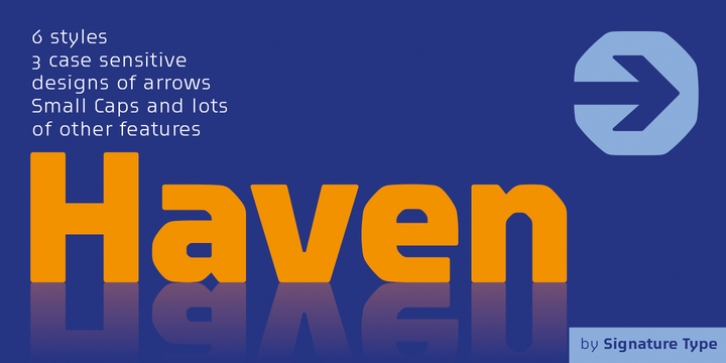
Haven was designed by Rostislav Vaněk, Tomáš Nedoma and published by Signature Type Foundry. Haven contains 6 styles and family package options.
Haven font family is based on the compositionality of constructive elements that create the final shape of individual letters. Mechanical connecting was continuously adjusted by a type designer's feeling. In this way Haven differs from similar typefaces of the 1960s and 1990s. Six fonts of different stroke intensity create a rich family of typefaces for a variety of uses in typography for special occasions. Although the typeface was drawn for headings, it is suitable for typesetting of long texts in a book. Even in extreme reduction it retains its technical basis, negating classic book alphabets, and it adds an experimental look to the text. Both extreme fonts Thin and Black create strong contrast and their magnification brings attention to their interconnection of all details. Serif version Haven Serif is also being prepared.
Haven Thin·
Haven Light·
Haven Regular·
Haven Semi Bold·
Haven Bold·